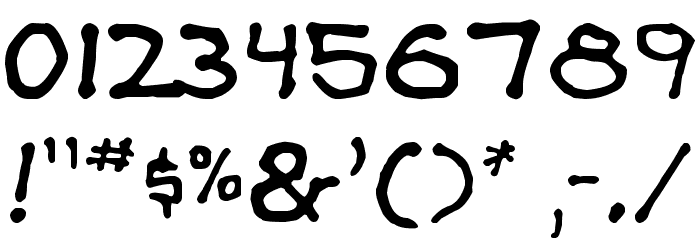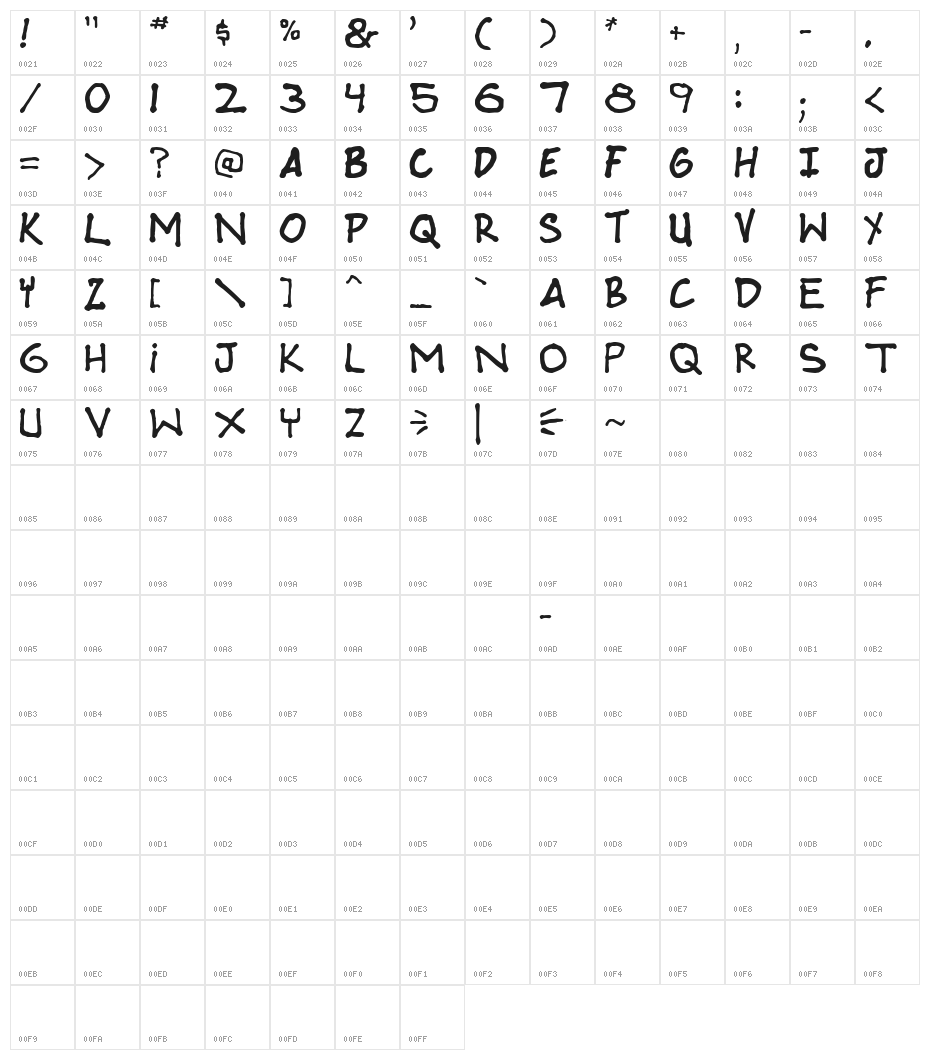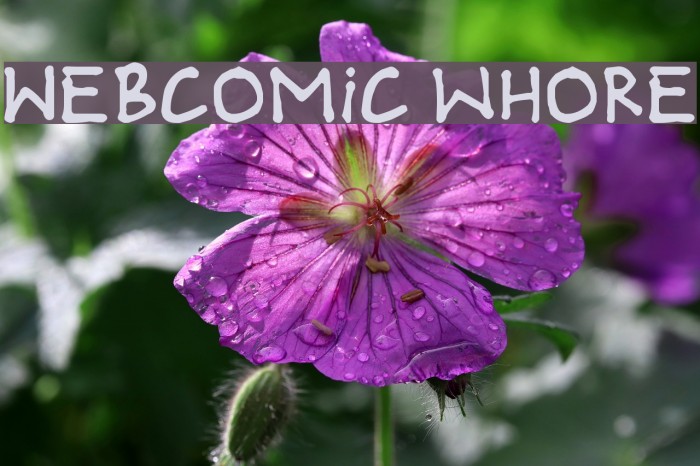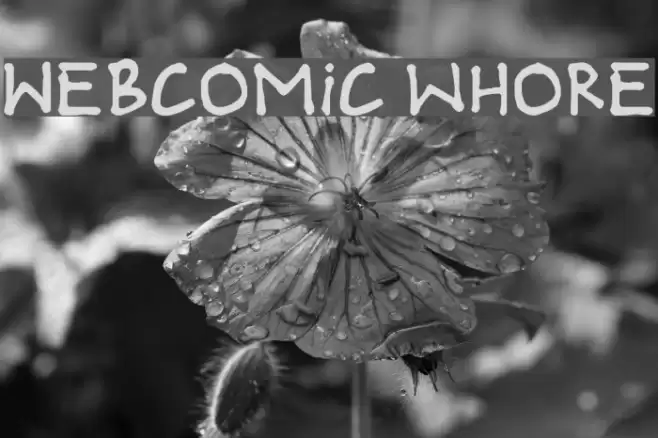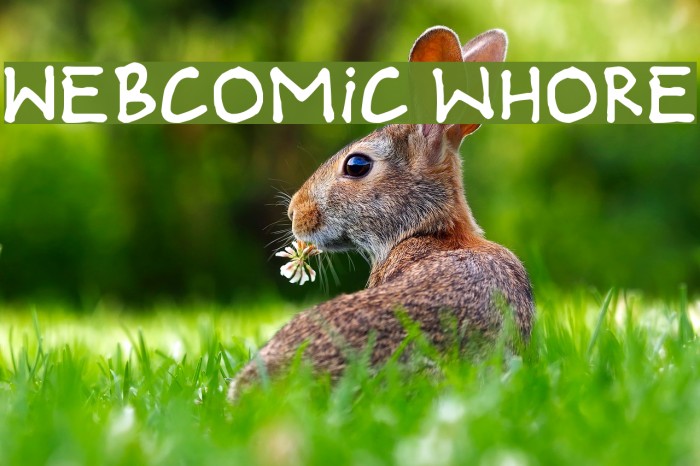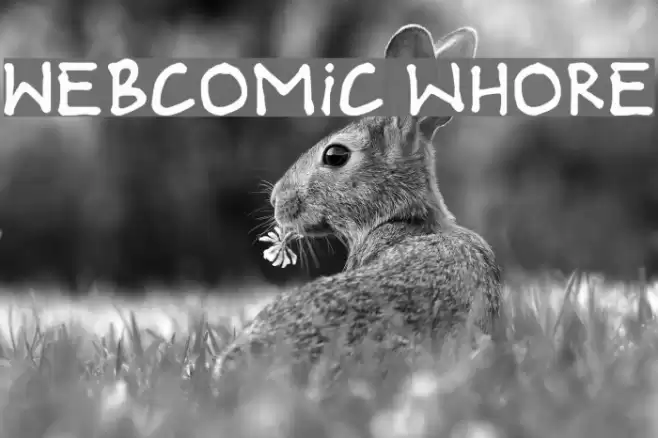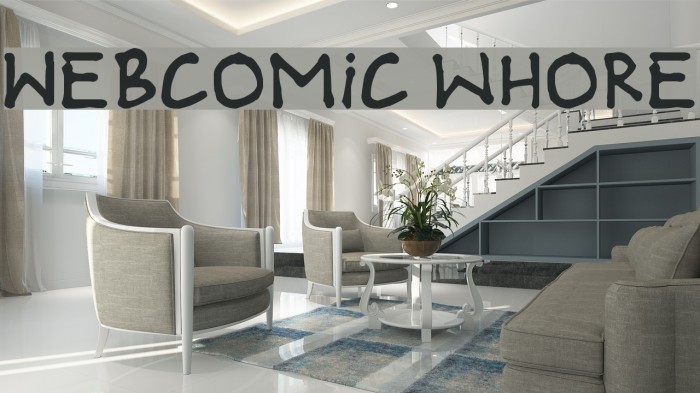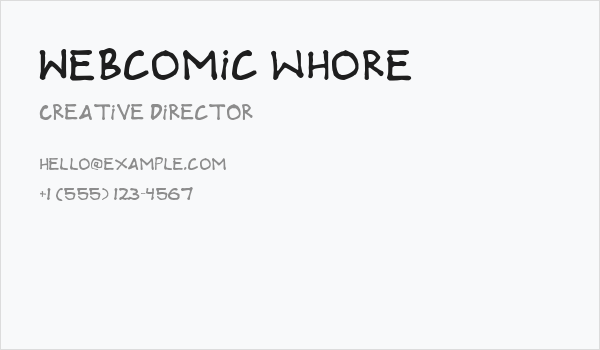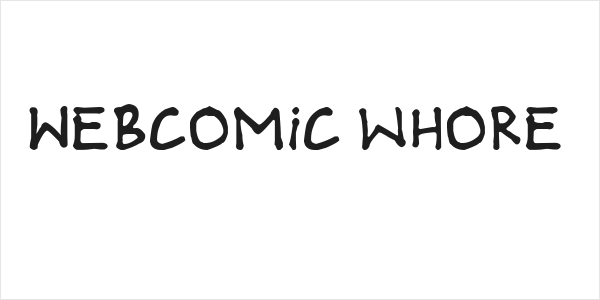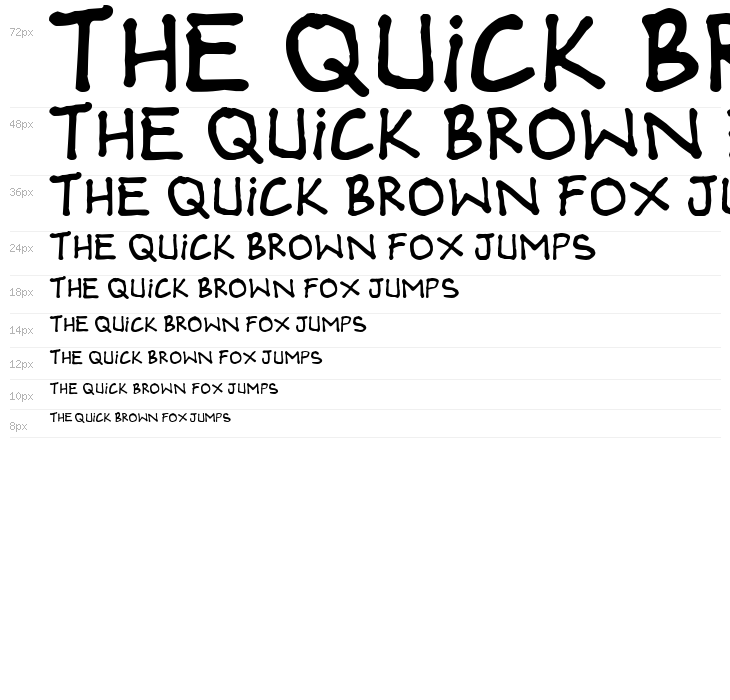
Webcomic whore Font
Webcomic whore Description
This font exudes a playful and informal style, reminiscent of hand-drawn lettering often found in comic books and graphic novels. The characters are bold and slightly irregular, giving them a lively and dynamic appearance. Each letter has a unique, organic feel, with varying stroke thicknesses that add to the casual and approachable nature of the font. The numbers and special characters maintain this whimsical style, making the font versatile for creative projects. Its distinct personality makes it ideal for settings where a fun and engaging tone is desired.
| Overall Style | Playful, Informal, Creative |
| Proposed Projects | Ideal for webcomics, children's books, playful branding, and creative posters. |